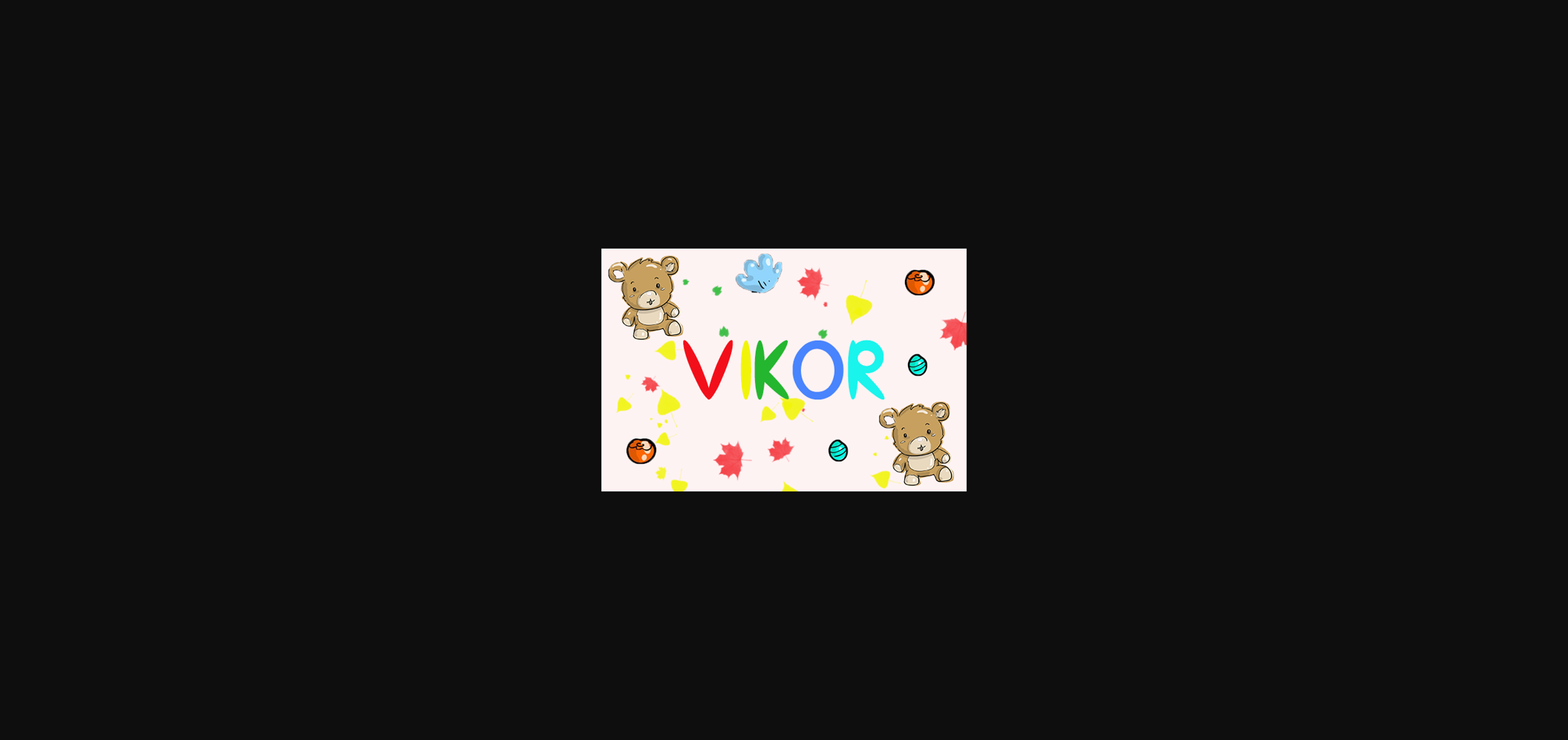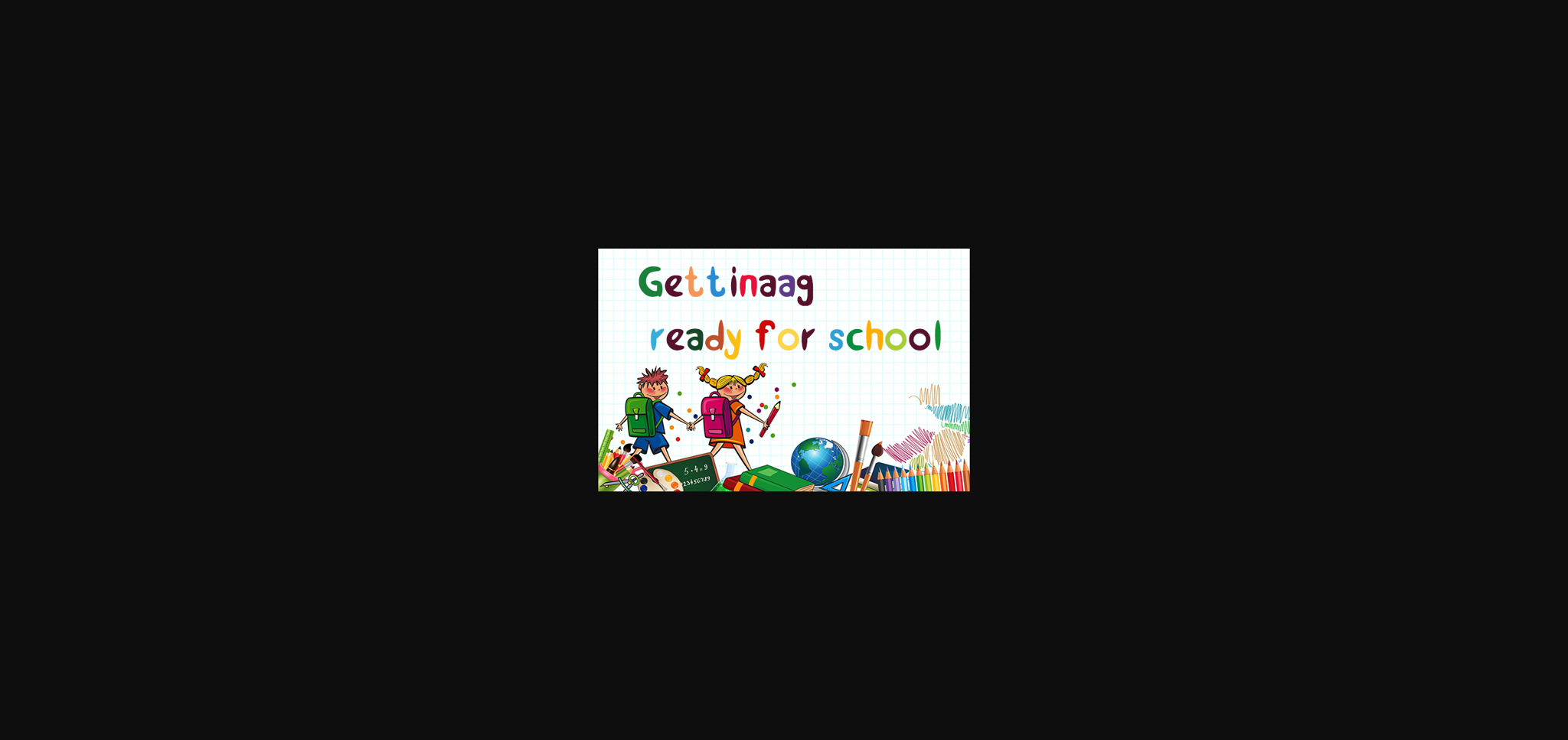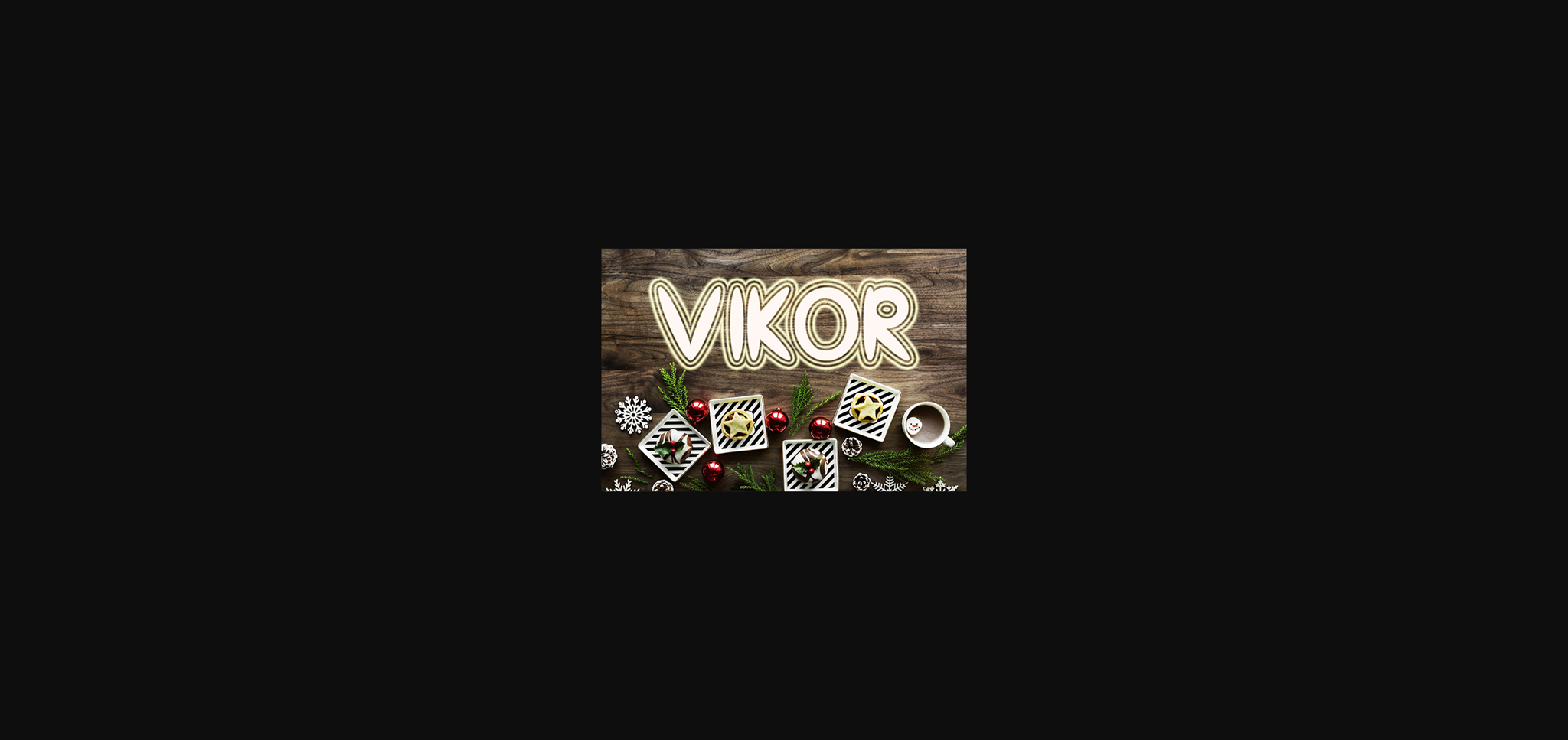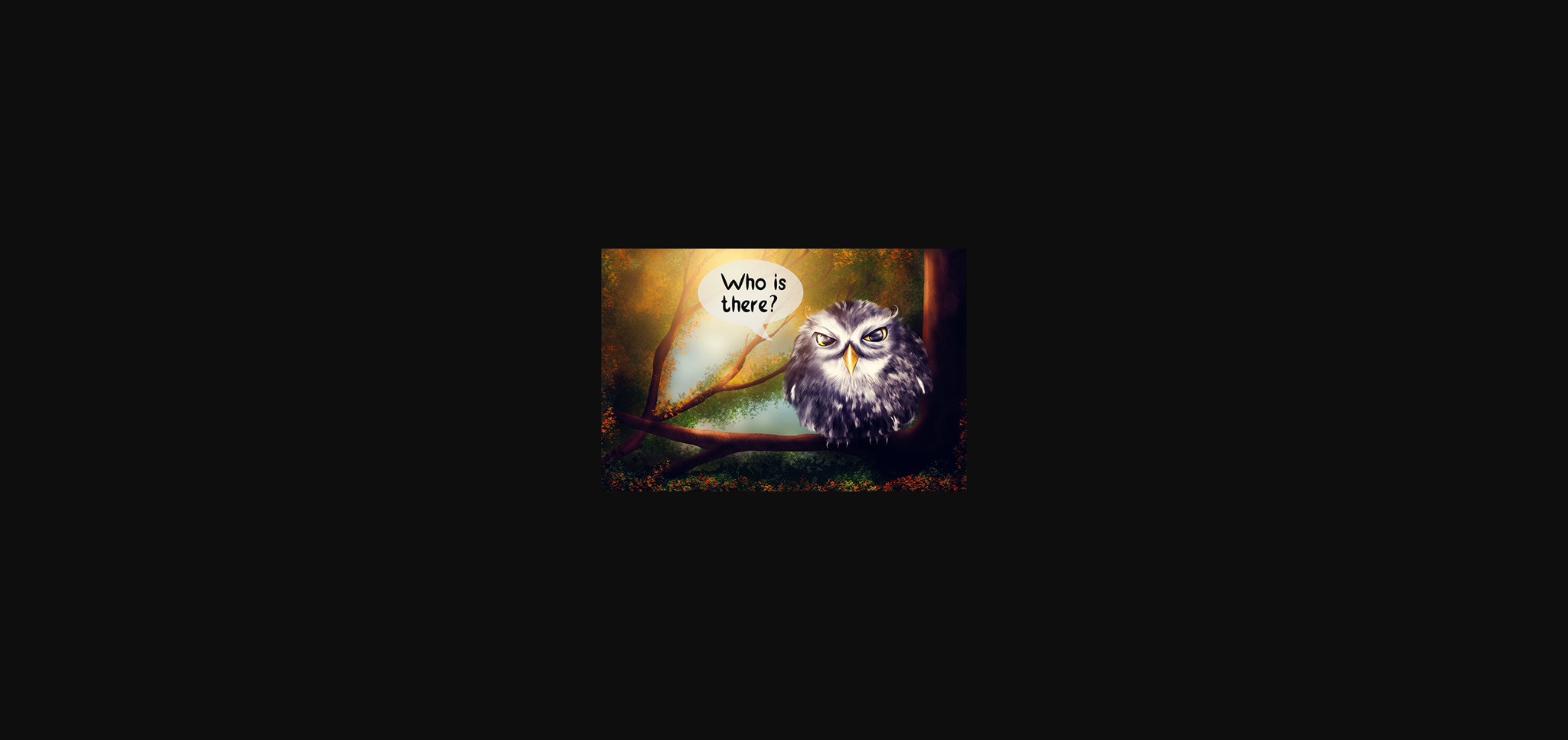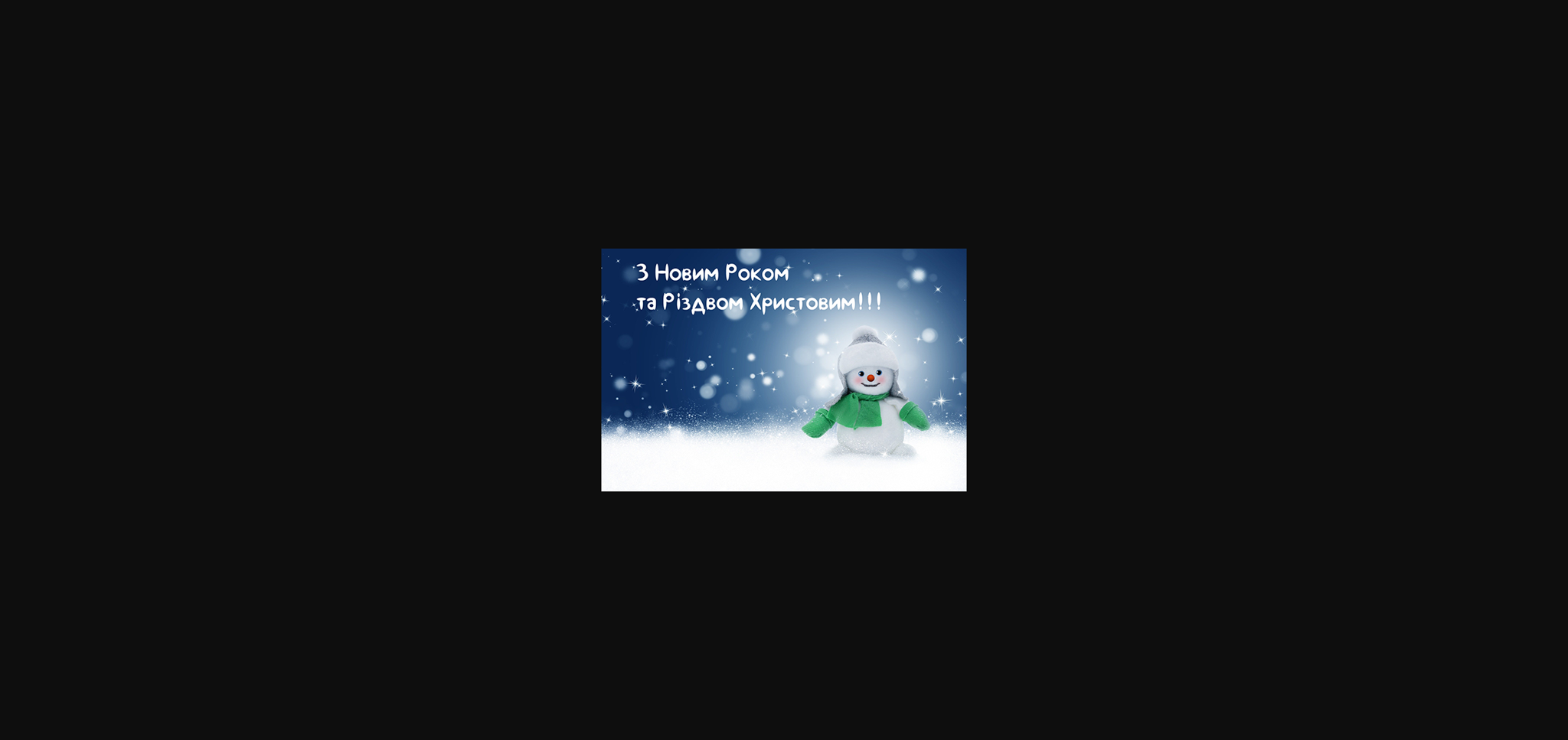
HomeSans Serif FontsVikor Font Sans Serif Fonts Vikor Font FacebookTwitterPinterestWhatsApp 1 of 7 ... Vikor Font Poster 2... Vikor Font Poster 3... Vikor Font Poster 4... Vikor Font Poster 5... Vikor Font Poster 6... Vikor Font Poster 7... About Vikor Font Vikor is a highly original sans-serif font that will give a playful look to any design idea! It will elevate any of your projects such as postcards, illustrations, banners, covers of children’s magazines, books, and much more! DOWNLOAD NOW 146 0 People also explored Davone Font Confarreatio Font Croissant Font Geometa Deco Thenicle Semi-Bold Font Classic Photoshop Shapes Font Astronueu Medium Font Chateau Font Cafune Font Belive Font Silvagia Font Welldone TagsVikorVikor Font Previous articlePinguin FontNext articleFlaurent Font LEAVE A REPLY Cancel reply Comment: Please enter your comment! Name:* Please enter your name here Email:* You have entered an incorrect email address! Please enter your email address here Website: Save my name, email, and website in this browser for the next time I comment. BLOG Font Trends 2025: Top Typography Styles for Spring Best Free Fonts for Logo Design in 2025 (Stylish & Professional) Free Fonts Risk: Why Free Fonts Can Be Dangerous for Designers Where to Buy American Fonts Online in 2024 Personal Use Free Just Love Personal Use Free Read more UseYourImagination Personal Use Free Read more Fillguy Font Personal Use Free Read more Rina Personal Use Free Read more